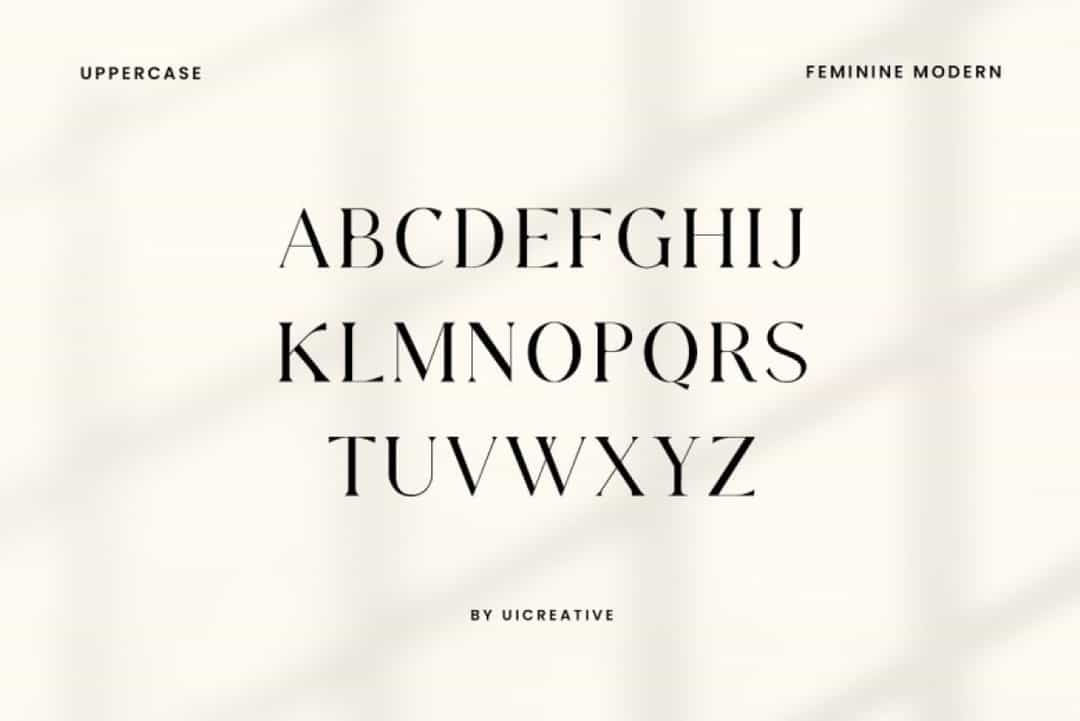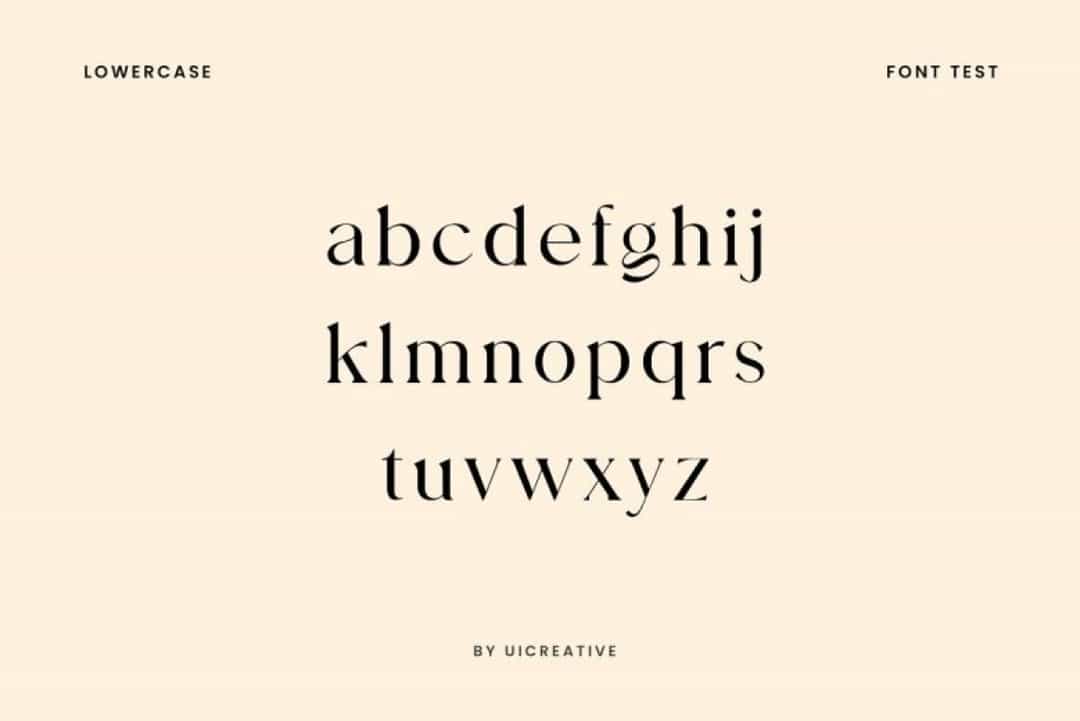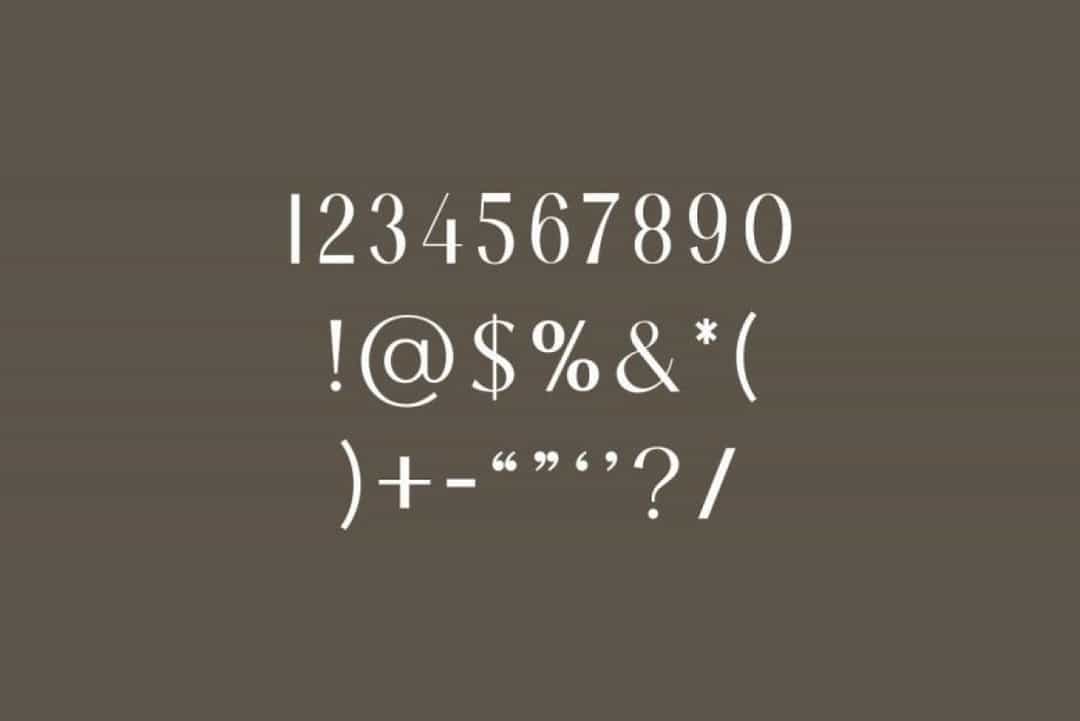
Velomia Vanorais Modern serif typeface is elegant, classy and modern – perfect for use in many designs such as stationary, signature, wedding logo and signature, typography quotes in magazines or book covers, headers for websites as well as clothing branding packaging designs or fashion-related editorial designs that demonstrate feminine or masculine qualities.